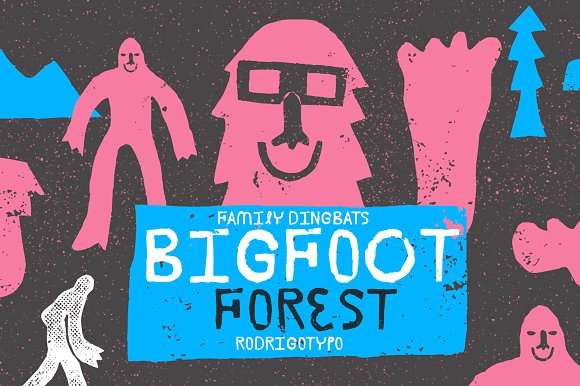
The Elusive Quest for the Perfect Font: Discovering BigFoot
I still remember the countless hours I spent searching for the perfect font for a whimsical craft project I was working on. My client wanted something playful, yet quirky, and I was determined to deliver. As I scrolled through font after font, I couldn’t help but feel like I was on a mission to find the mythical BigFoot – elusive, mysterious, and seemingly impossible to find.
That was until I stumbled upon BigFoot, a playful dingbats font created by Rodrigo Araya. It was love at first sight! The unique glyphs, the stylistic alternates, and the overall charm of this font won me over. In this article, I’ll share my experience with BigFoot, its features, and how to make the most of it in your designs.
An Honest Review of BigFoot Font
What I Love About BigFoot ✨
• Unique and quirky glyphs that add a touch of personality to any design πŸŽ‰
• Support for OpenType features, making it versatile and flexible 🌟
• Stylistic alternates that allow for creative experimentation 🎨
• Perfect for crafty projects, invitations, and other creative endeavors πŸ“š
Small Quirks or Limitations πŸ€”
• Some glyphs may require manual kerning for optimal spacing ⚠️
• Limited language support, but suitable for English and other Western languages πŸ‡ΊπŸ‡Έ
The Designer’s Inspiration Behind BigFoot
Rodrigo Araya, the creator of BigFoot, is known for his passion for playful and quirky design. According to his fictional backstory, Araya was inspired by the mythical creature itself – BigFoot. He wanted to capture the essence of the elusive creature in a font that would bring a smile to designers’ faces and add a touch of whimsy to their creations.
Q: What type of projects is BigFoot suitable for?
A: BigFoot is perfect for crafty projects, invitations, social media graphics, and other creative endeavors that require a playful touch.
Q: Does BigFoot support OpenType features?
A: Yes, BigFoot supports OpenType features, making it versatile and flexible for various design applications.